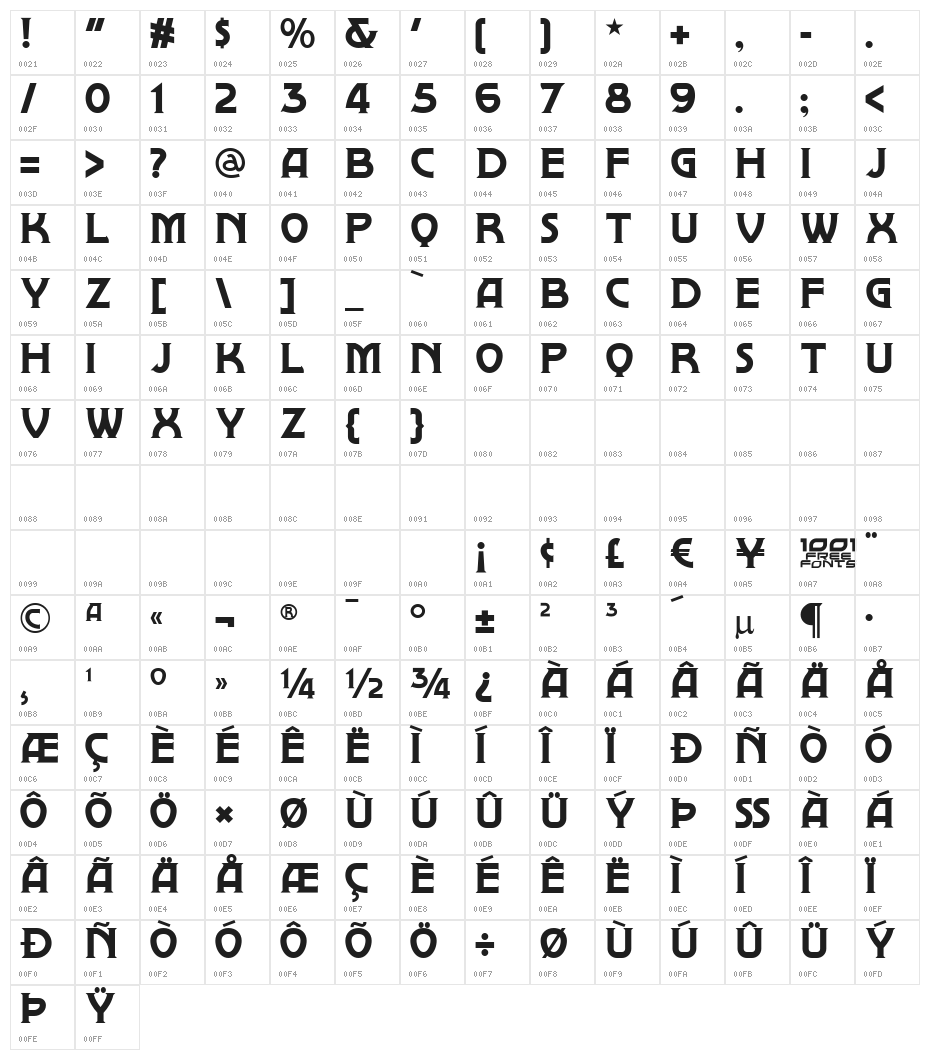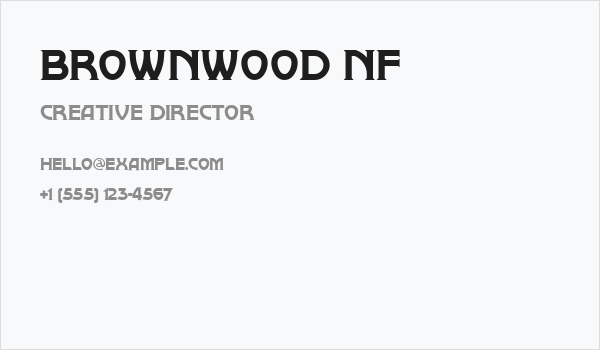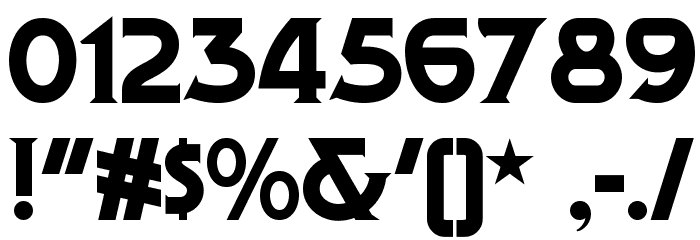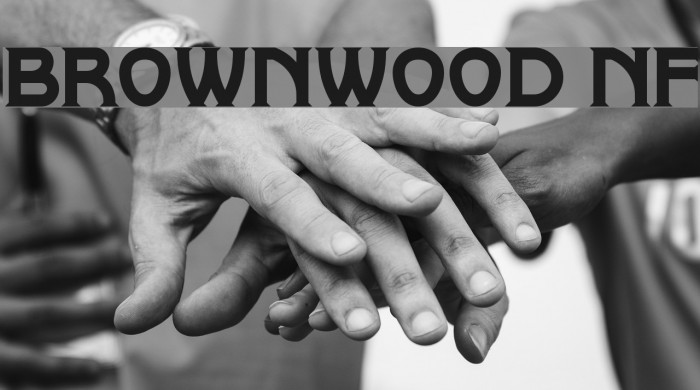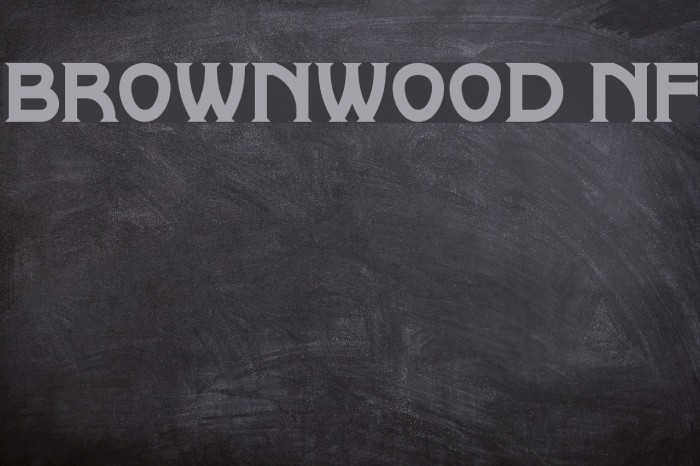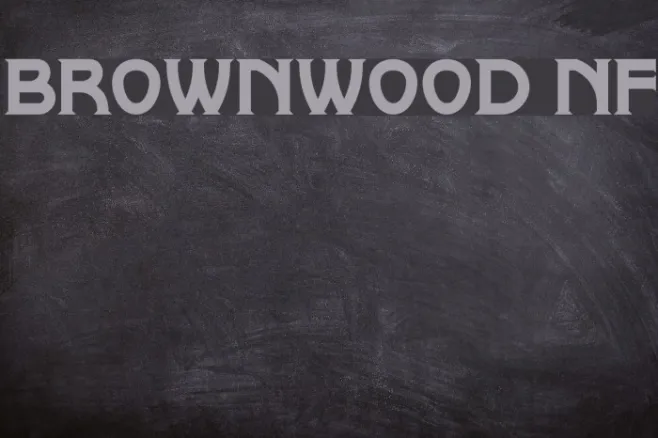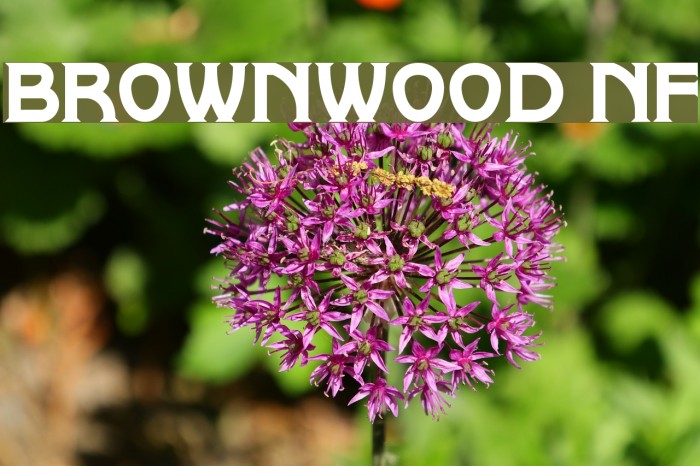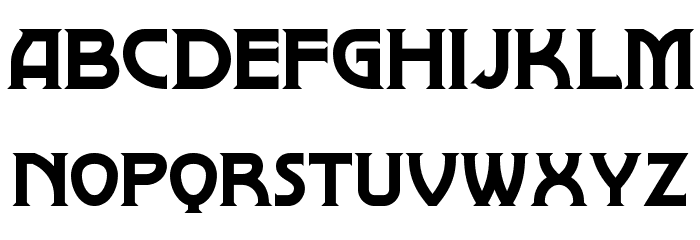
Brownwood NF Font
Brownwood NF Description
This font features a bold and striking design with a strong presence. The characters are crafted with a unique blend of sharp angles and smooth curves, giving it a distinctive and eye-catching appearance. The uppercase letters are particularly prominent, with a slight flair at the ends of the strokes, adding a touch of elegance. The numerals and special characters maintain the same boldness, ensuring consistency throughout. This font is ideal for making a statement and drawing attention.
| Proposed Projects | Ideal for posters, logos, and branding materials that require a strong visual impact. |